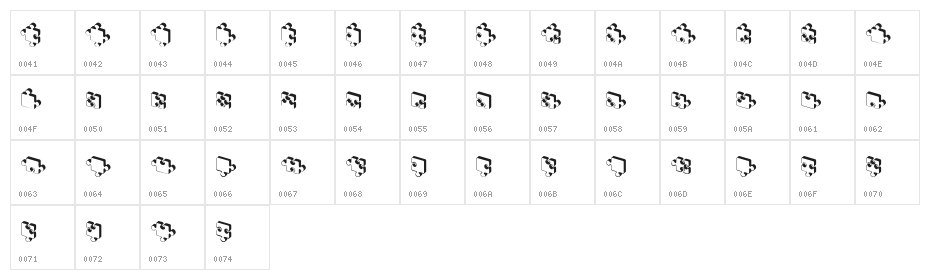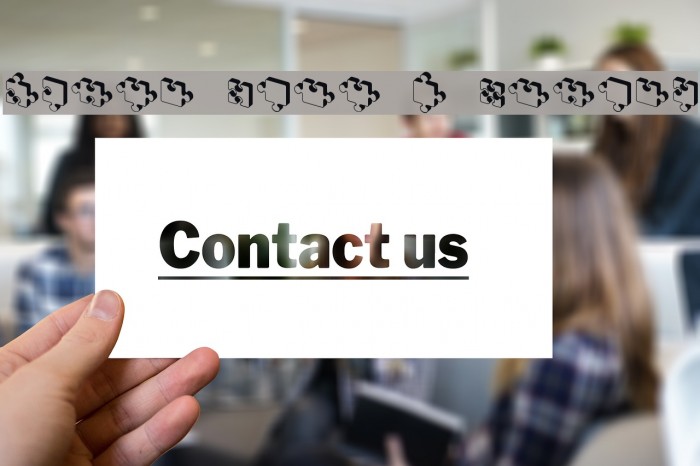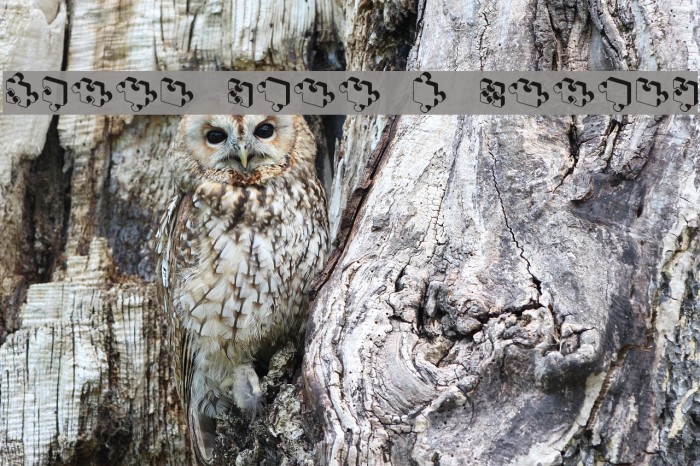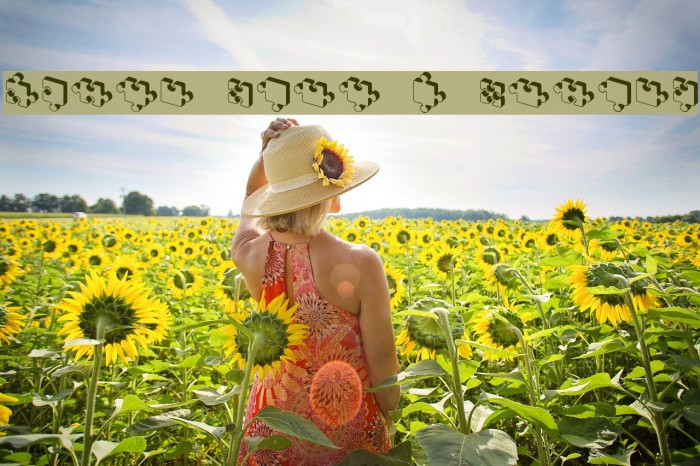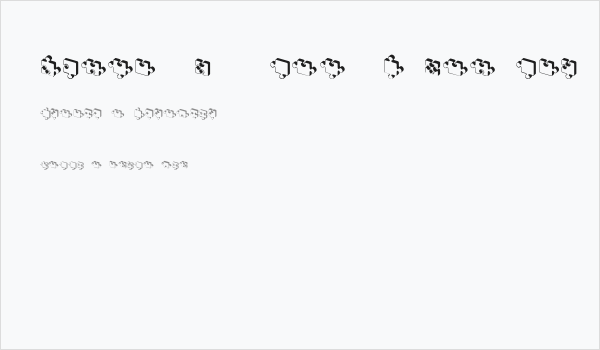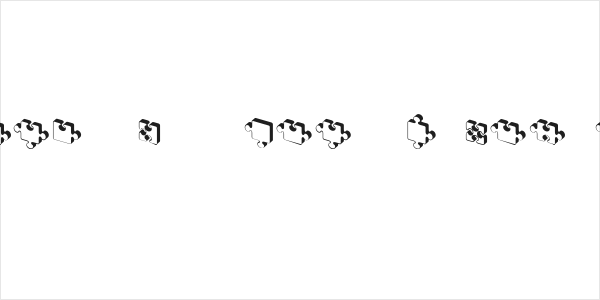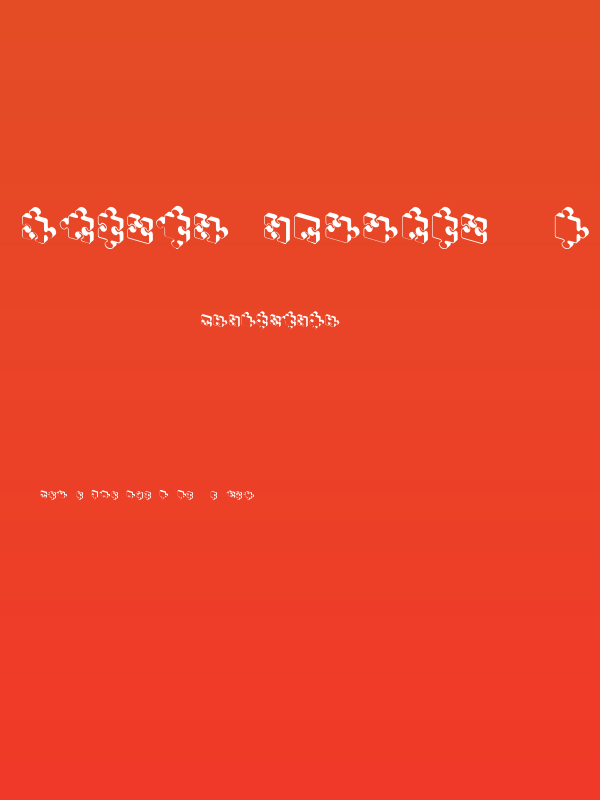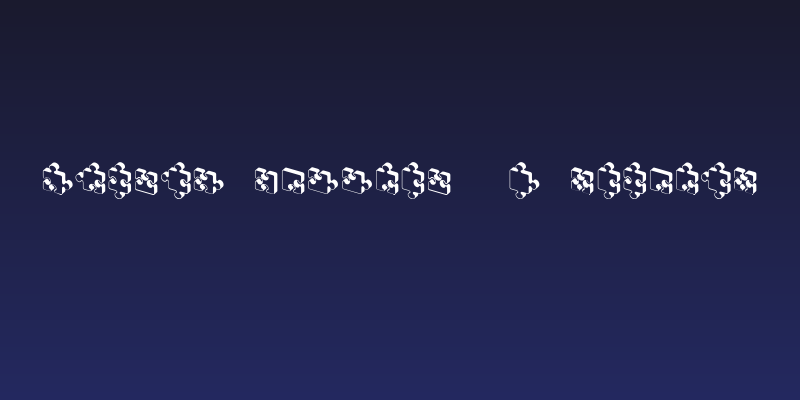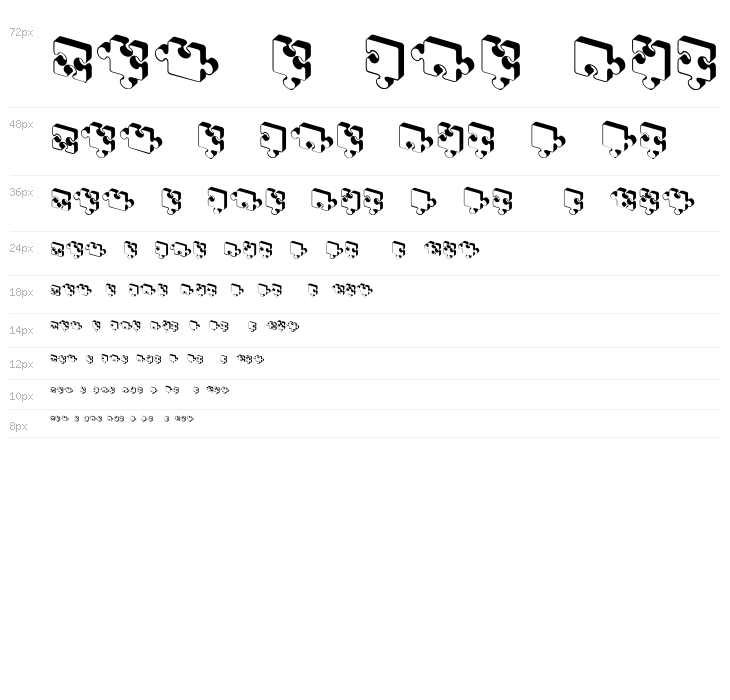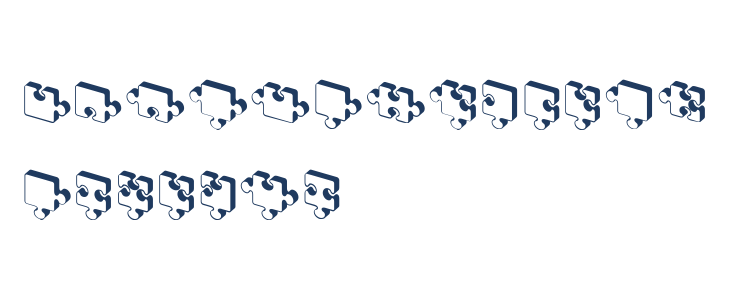
Jigsaw Puzzles 3D Regular Font
Jigsaw Puzzles 3D Regular Description
This font features a unique 3D jigsaw puzzle piece design for each character, creating a playful and engaging visual experience. The characters are constructed to resemble individual puzzle pieces, complete with interlocking tabs and slots, giving them a distinct three-dimensional appearance. The bold outlines and shadowing enhance the depth effect, making each letter stand out as if it were a tangible object. This font is highly decorative and is designed to capture attention with its intricate and whimsical style. The characters maintain a consistent size and shape, ensuring readability while still offering a creative twist on traditional letterforms.
| Proposed Projects | Ideal for children's books, educational materials, toy packaging, and playful branding projects. |